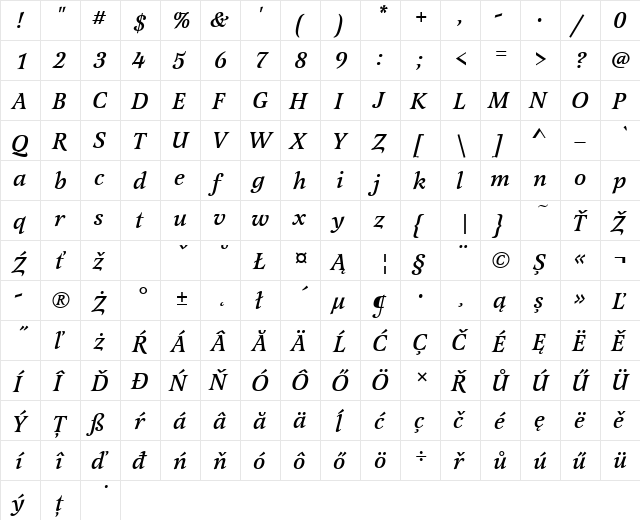
LatienneTEEMed Italic
Design Context for LatienneTEEMed Typeface
LatienneTEEMed offers clean, dependable letterforms without strong stylistic allegiance, making it a practical choice for designers who need flexibility. Its italic angle brings a sense of urgency and motion to the letterforms.
Pro Tip: Try LatienneTEEMed for annotation and caption copy alongside an upright companion — the contrast in angle creates a dynamic but ordered typographic system.